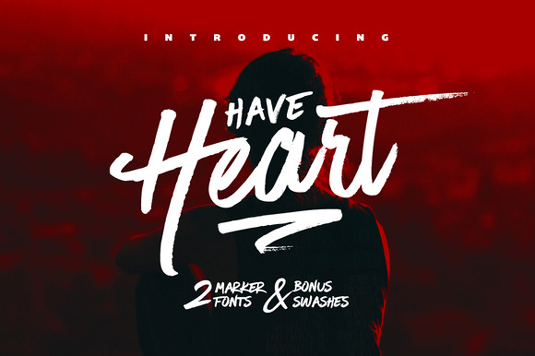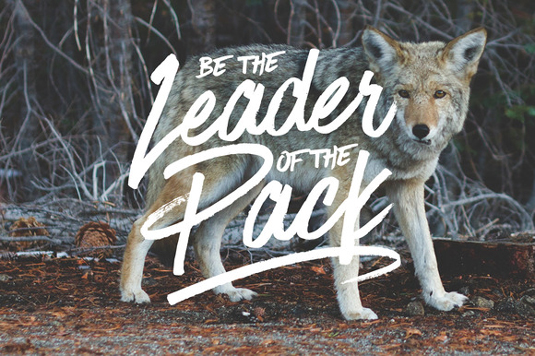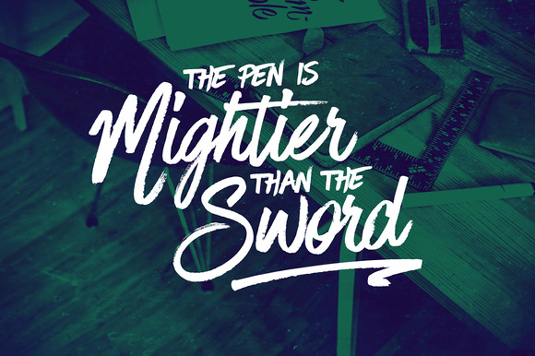
Font of the day: Have Heart
Every day we showcase the best fonts on the web. Today it's Have Heart from Set Sail Studios.
Have Heart from Set Sail Studios
Created by the team at Set Sail Studios, Have Heart is a set of two hand-made marker pen fonts, designed to combine perfectly and allow you to create stunning hand-lettering quickly and easily.